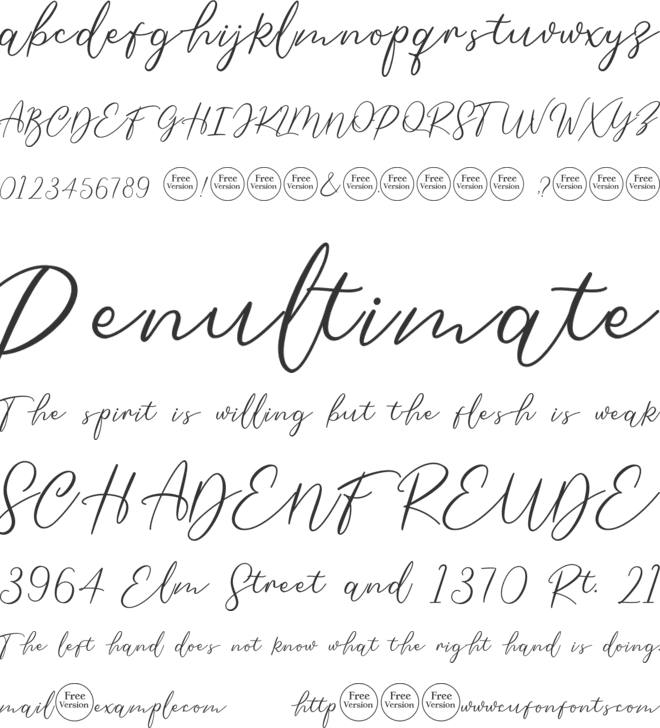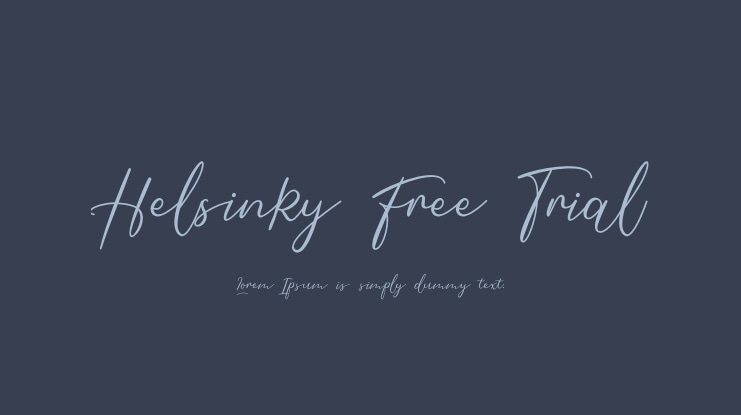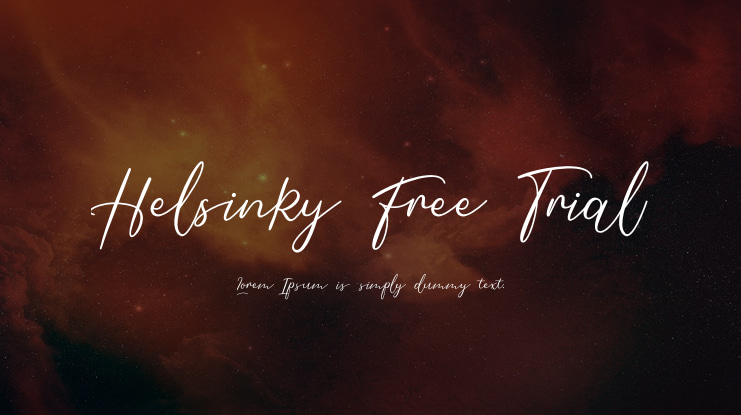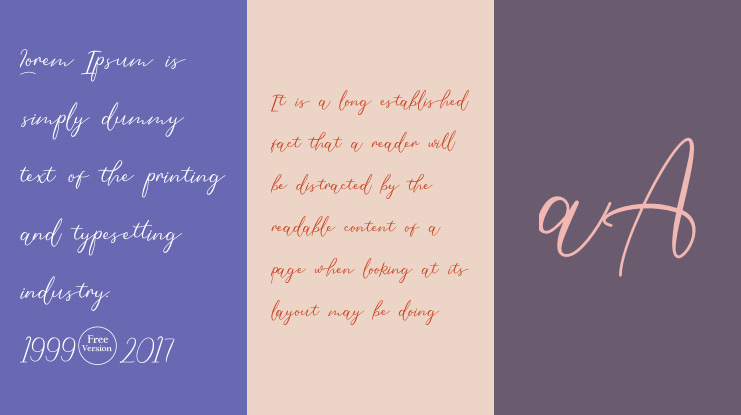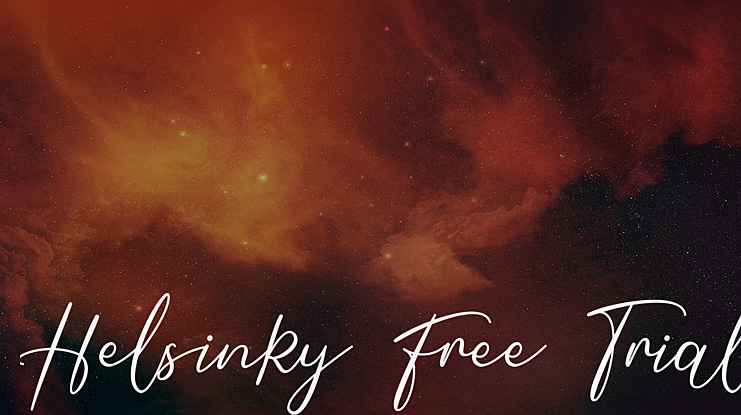
Helsinky Free Trial Font
typefactory
Helsinky is a beautiful handwritten typeface. It has a natural writing style with a great readability. It’s perfect for adding a natural touch to your luxurious designs.